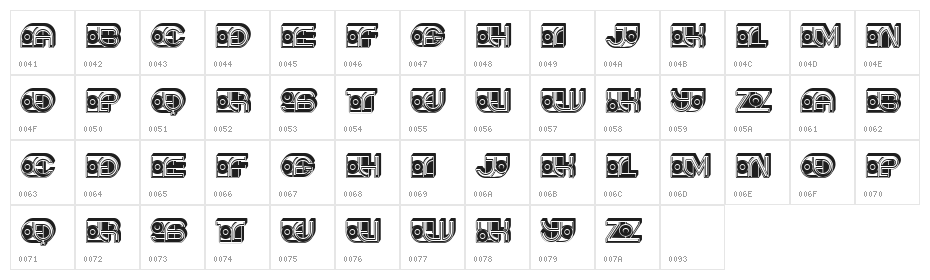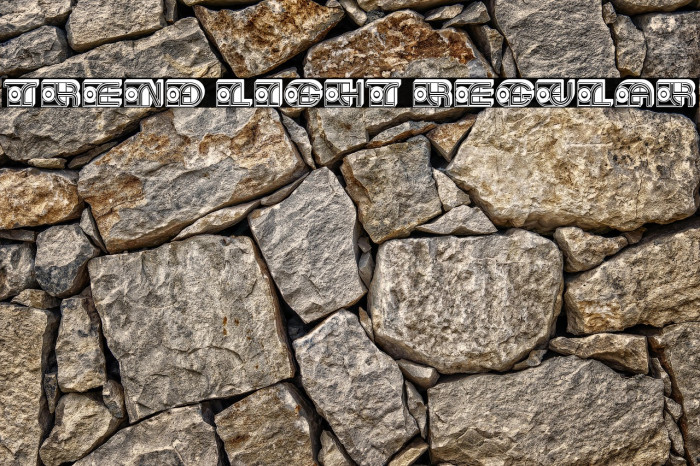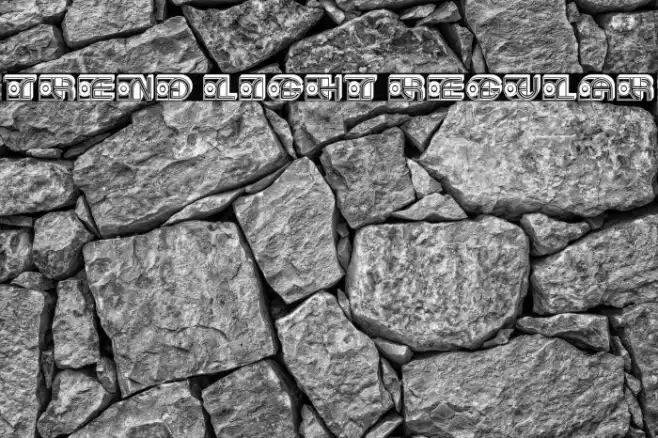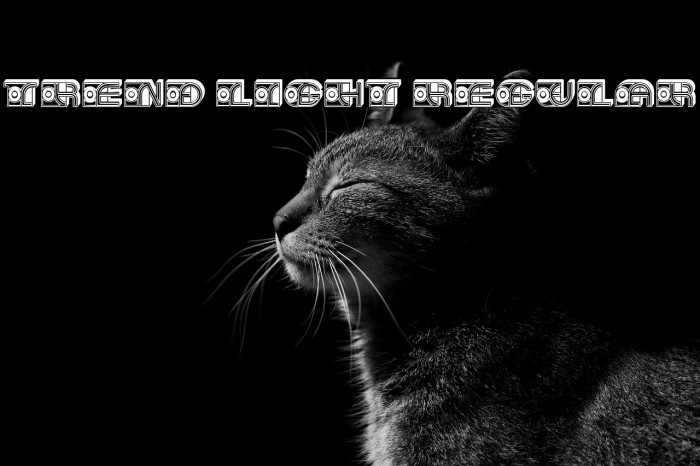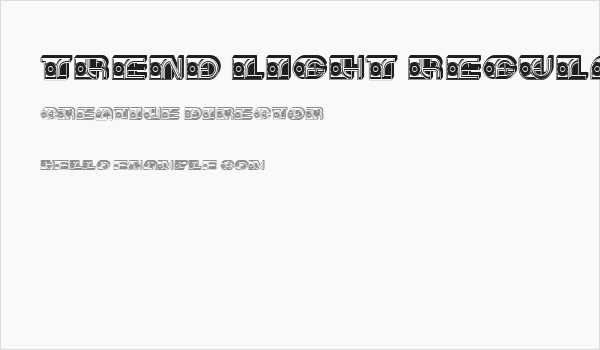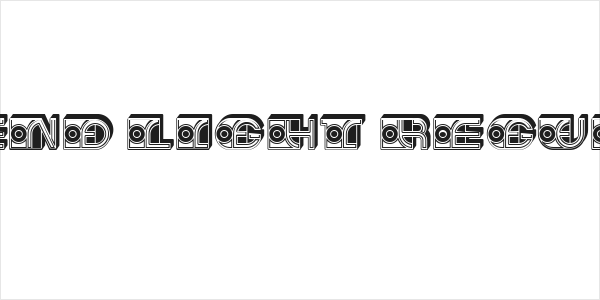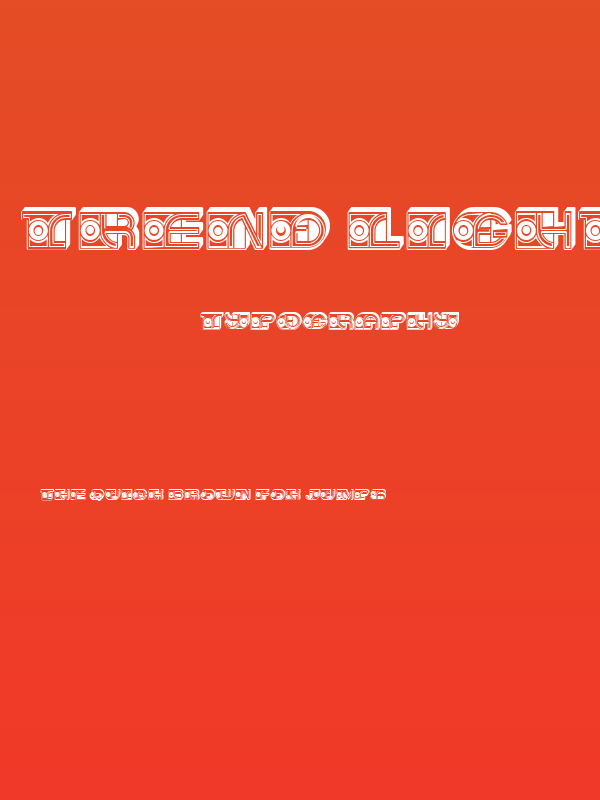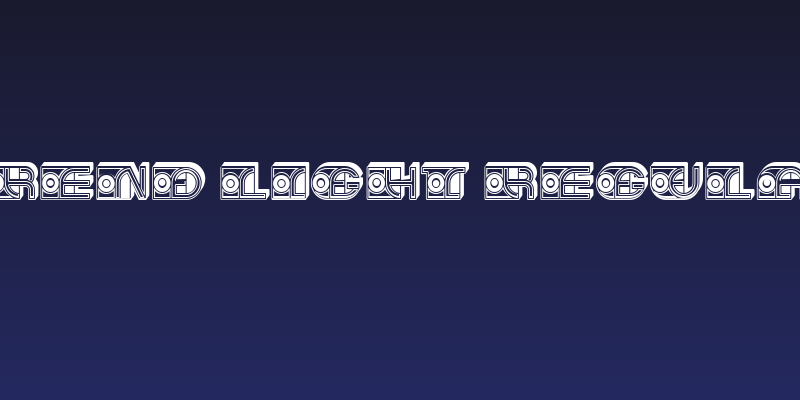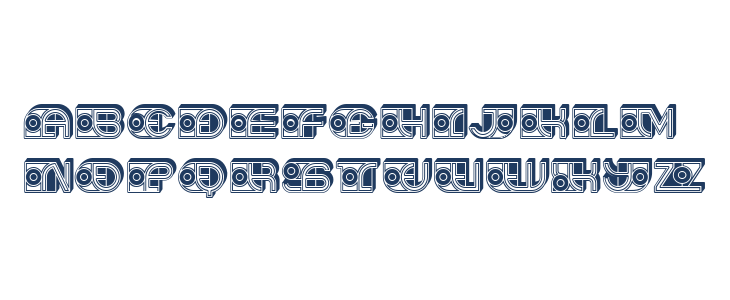
Trend Light Regular Font
Trend Light Regular Description
This font features a highly decorative and intricate design, characterized by bold geometric patterns and circular motifs within each letterform. The uppercase and lowercase letters share a consistent style, with elaborate detailing that creates a sense of depth and complexity. The numbers and special characters are equally ornate, maintaining the overall aesthetic. This font is visually striking and commands attention, making it ideal for projects that require a strong visual impact.
| Proposed Projects | Ideal for branding, poster design, album covers, and any project needing a bold, artistic touch. |